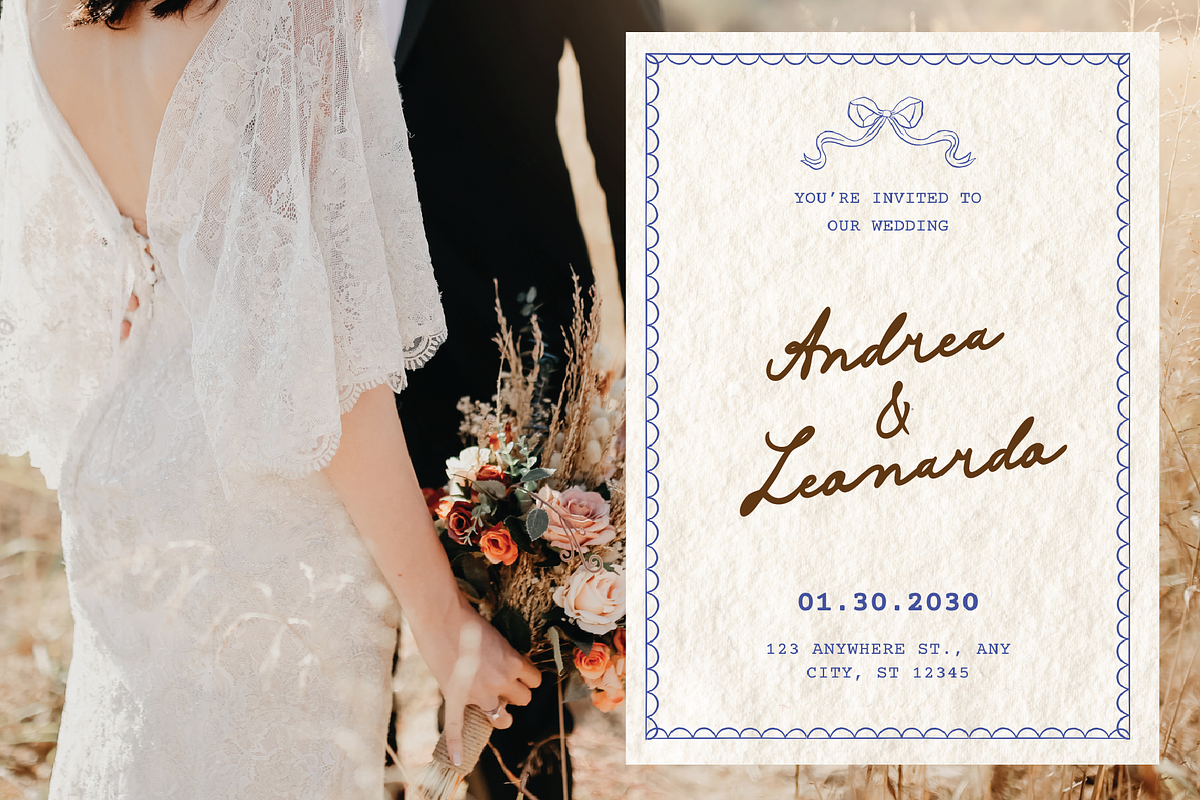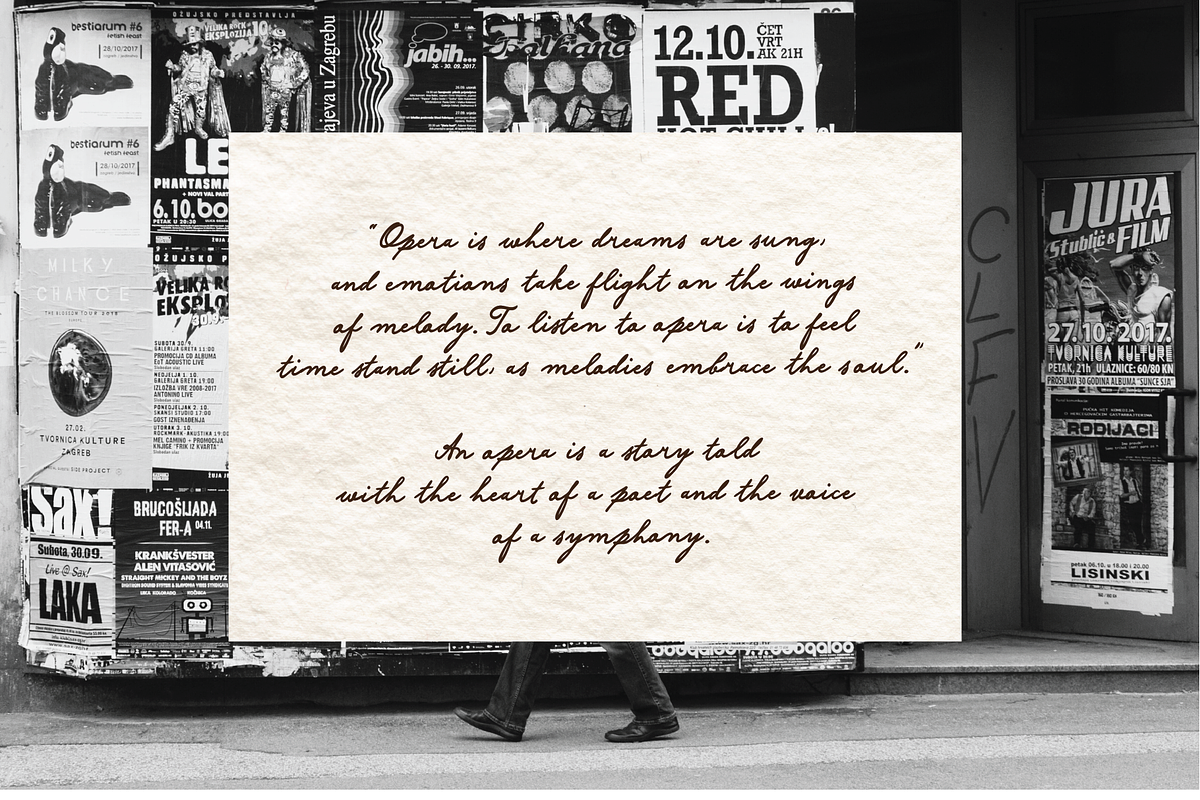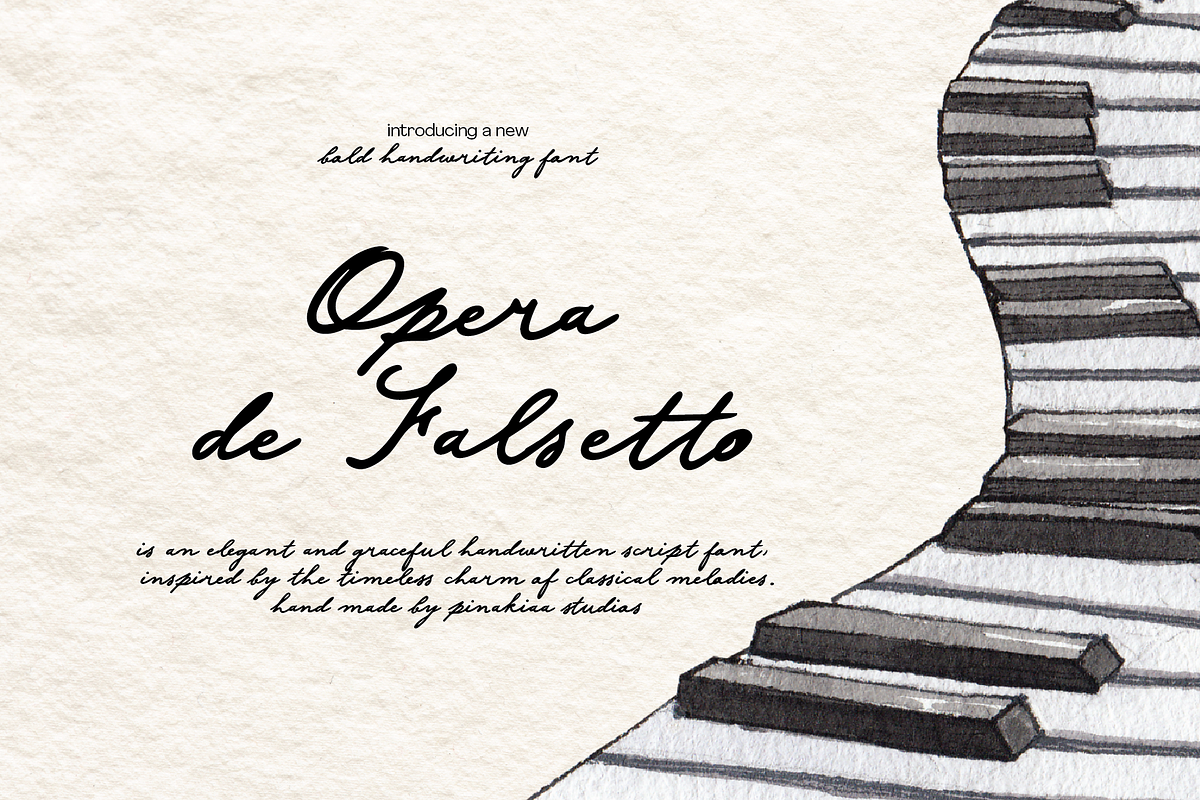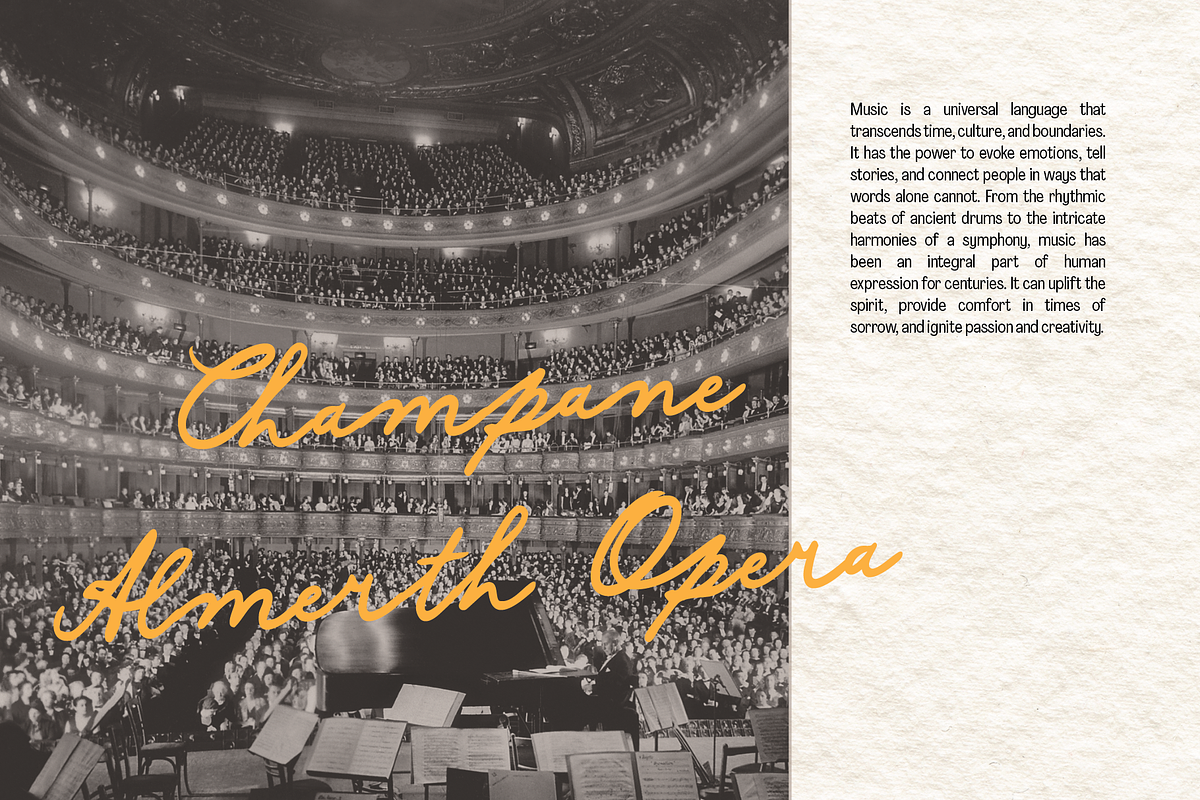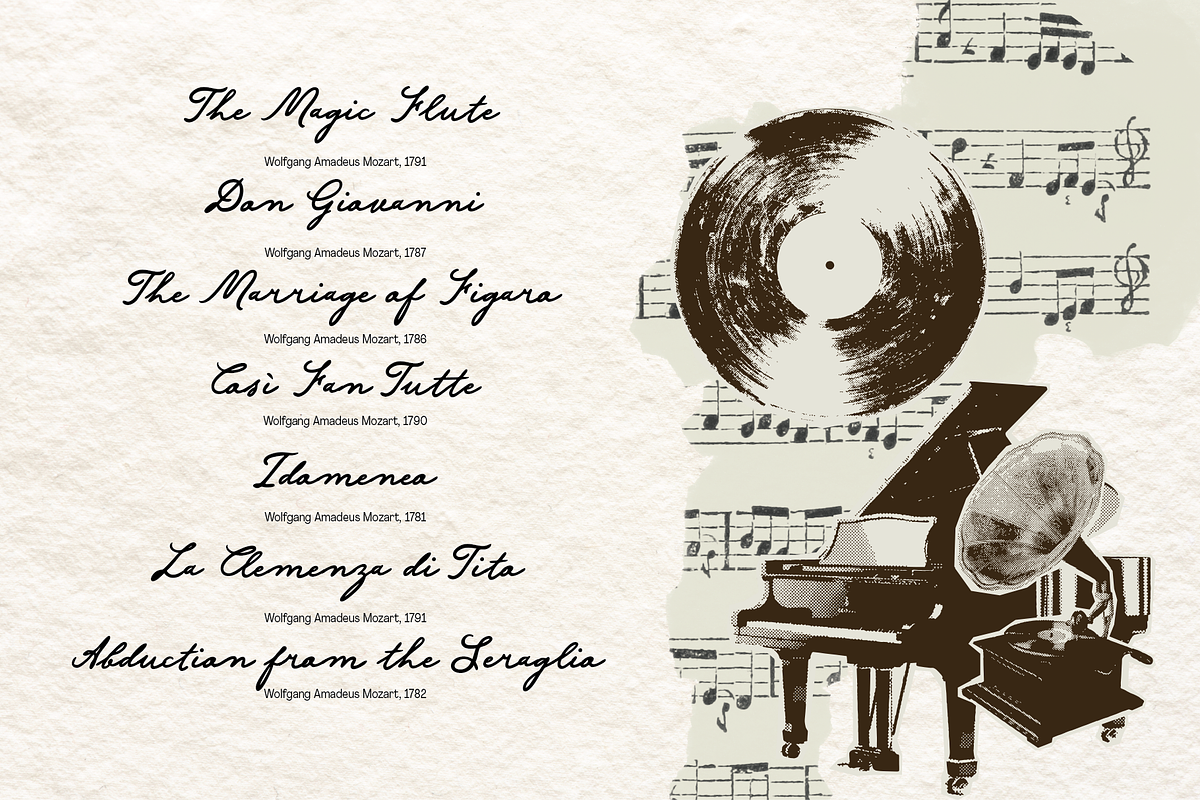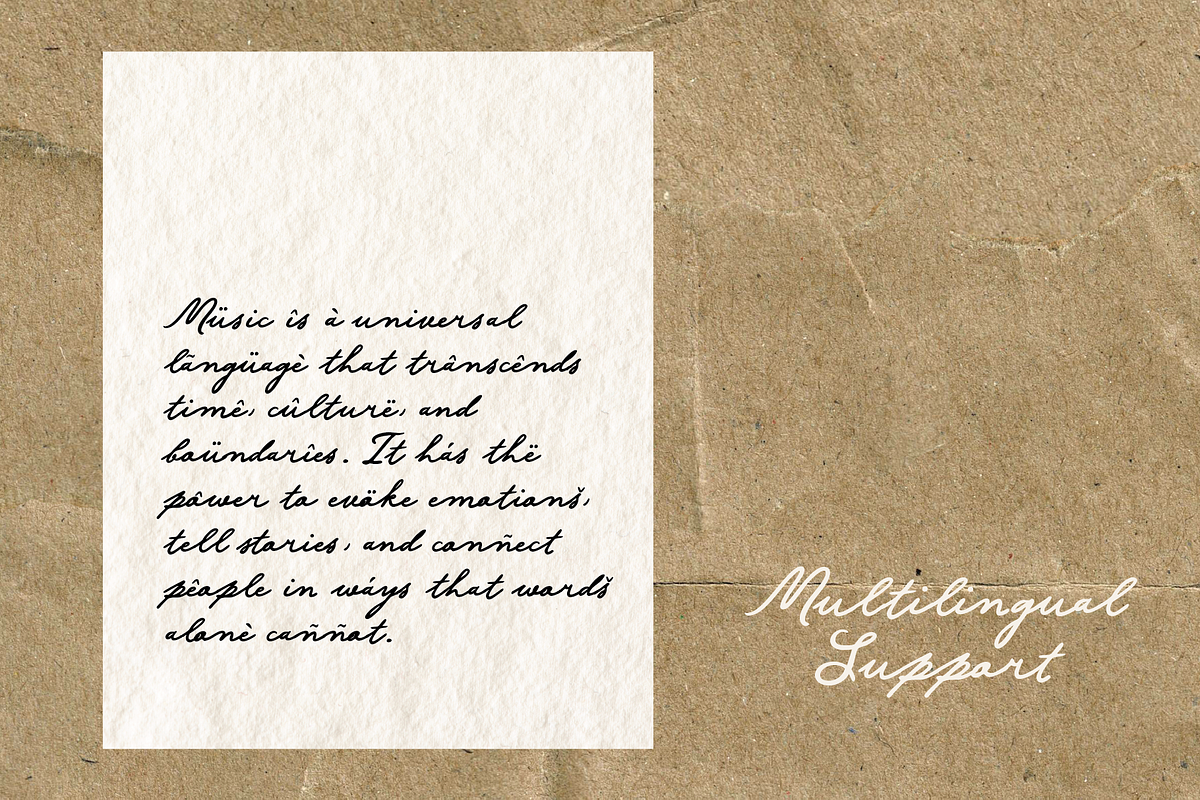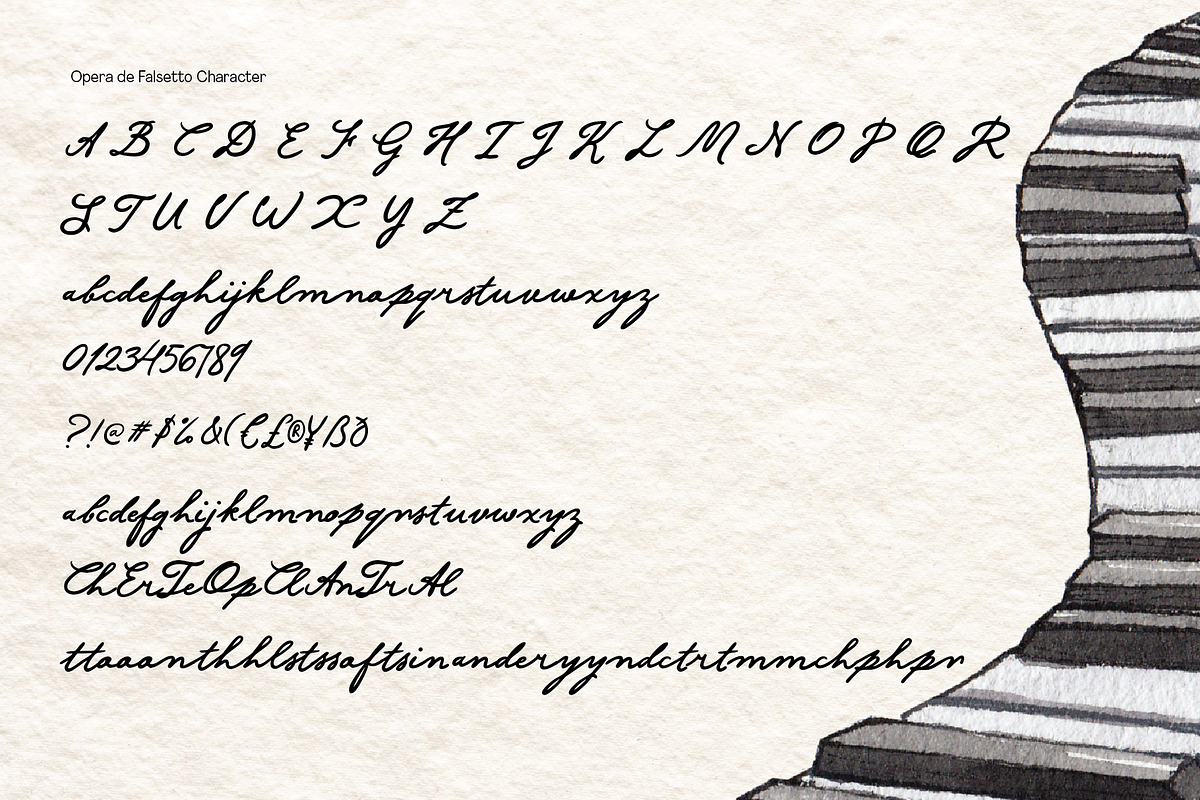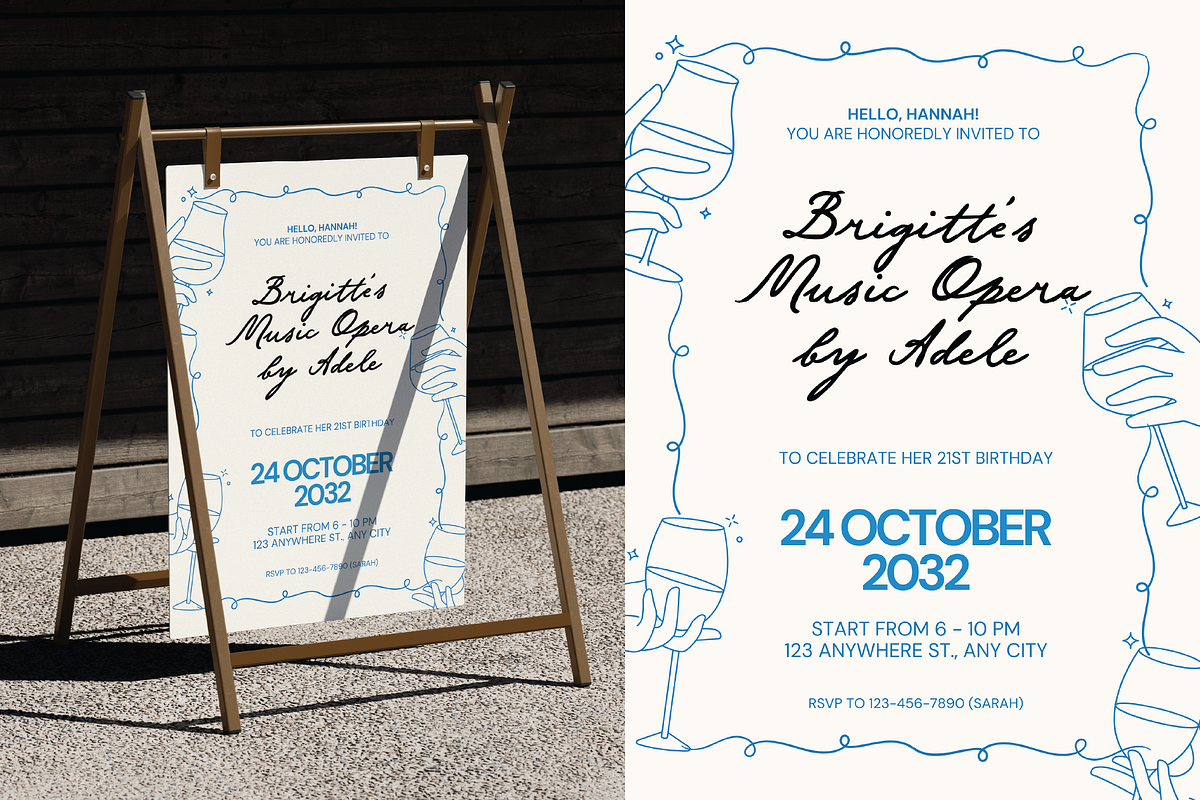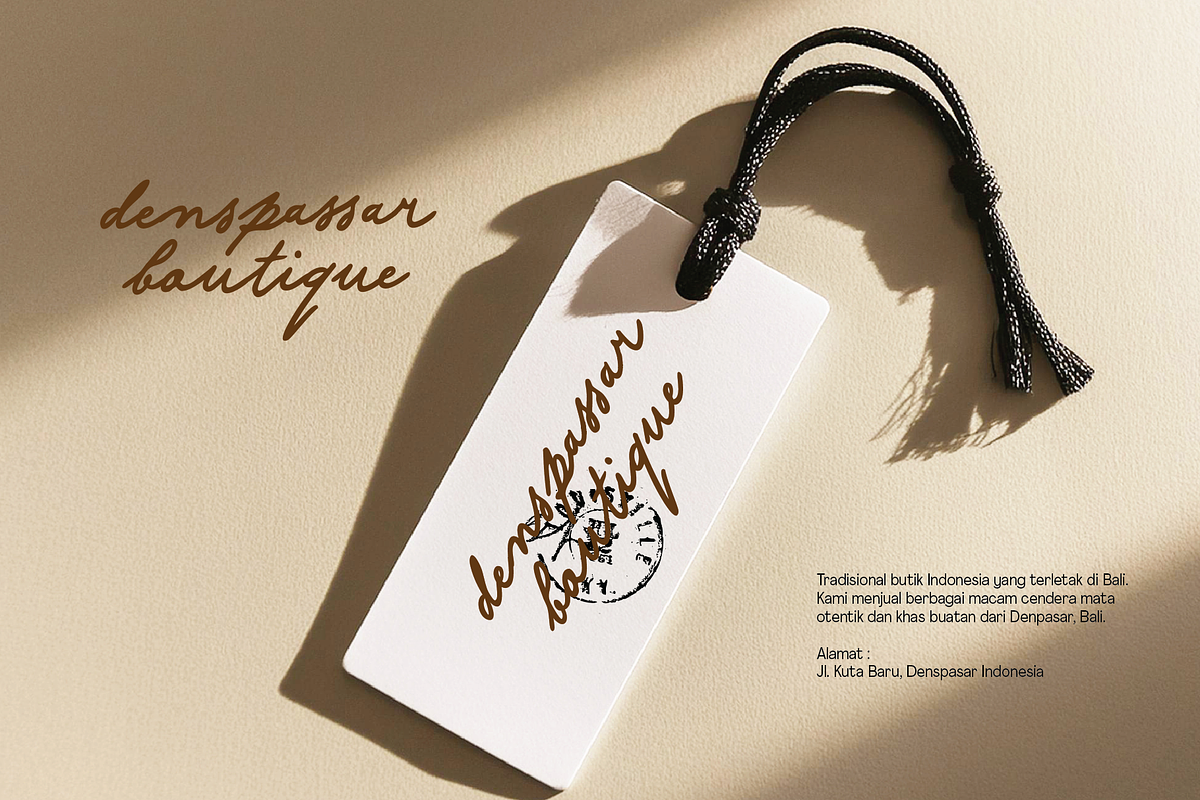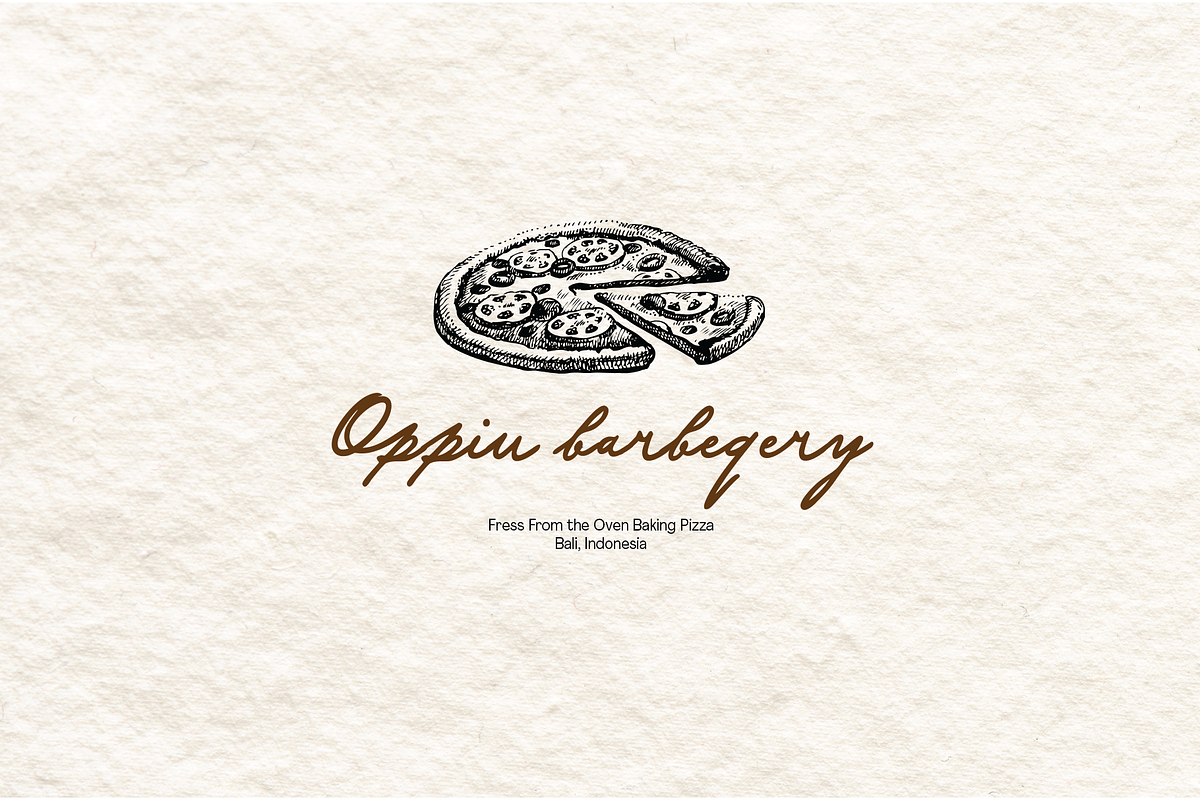
Opera de Falsetto Handwriting
Introducing "Opera de Falsetto" is an elegant and flowing handwritten script font, inspired by the timeless beauty of classical melodies. Its graceful curves and refined strokes bring a sense of sophistication, making it perfect for branding, invitations, and editorial designs.